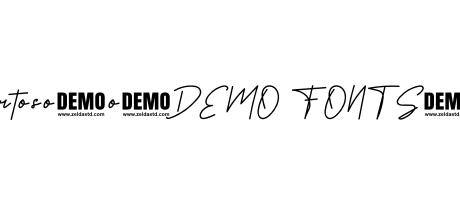
Kertosono-DEMO FONT Script
Kertosono-DEMO FONT Script: A captivating dance of elegant curves and playful strokes. Its effortlessly chic style blends sophistication with a touch of whimsy, perfect for adding a personal touch to logos, invitations, or any project needing a unique, handwritten feel. Its versatility shines through in both bold statements and delicate details.